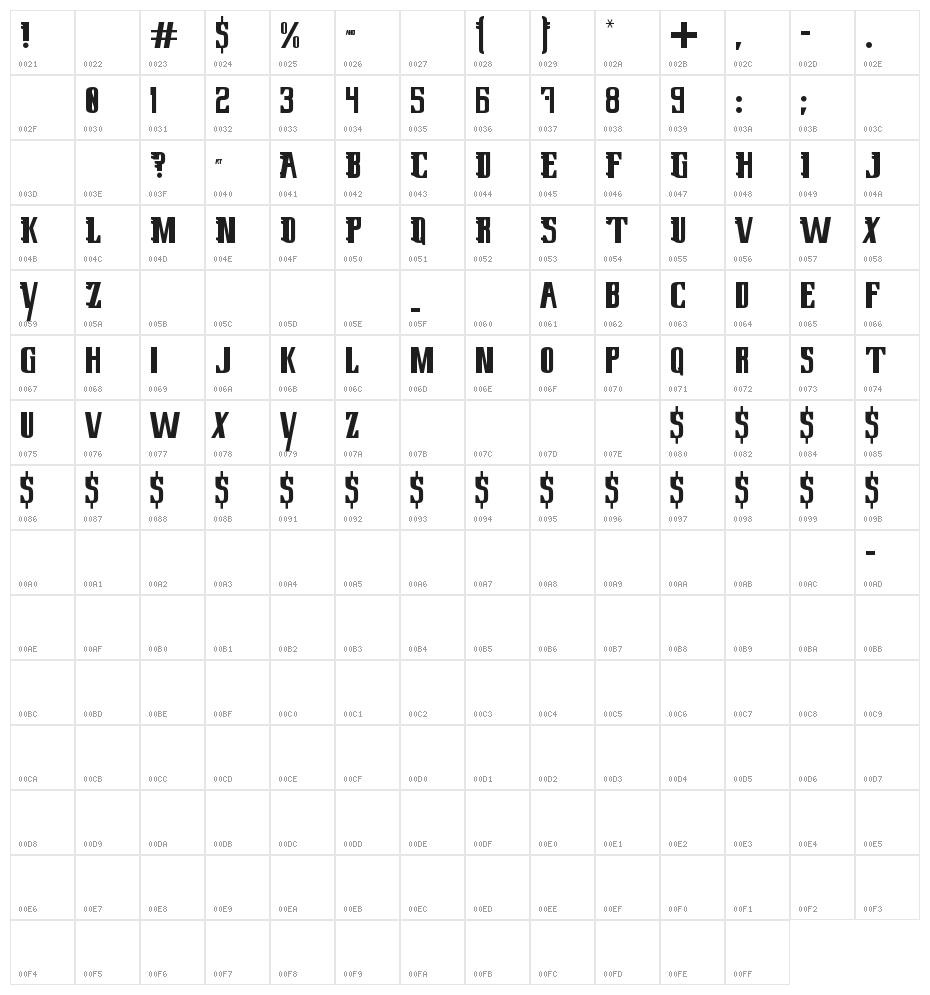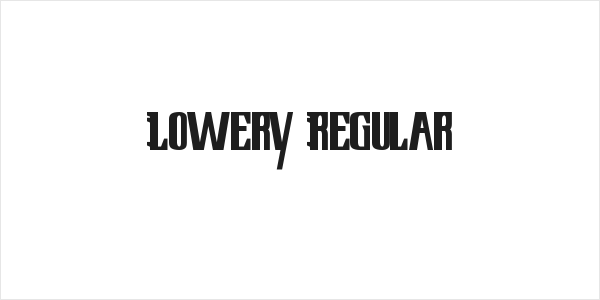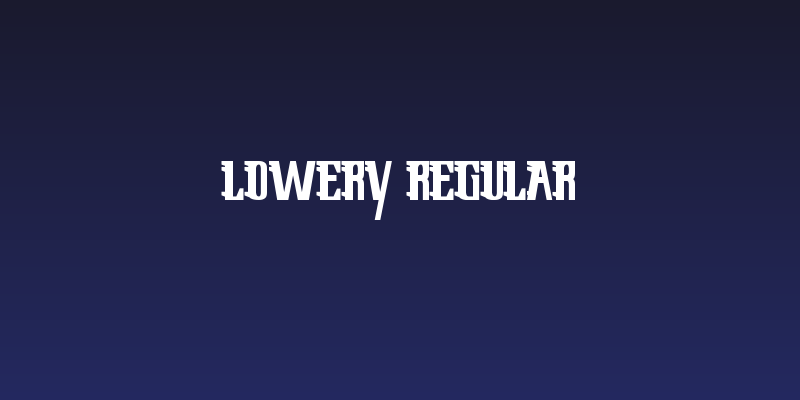
Lowery Regular Font
Lowery Regular Description
This font features a bold and striking design with a strong geometric influence. The characters are constructed with sharp angles and a blocky appearance, giving it a distinct and powerful presence. The uppercase letters are particularly prominent, with a uniform height and width that create a cohesive look. The lowercase letters maintain the same boldness, ensuring readability while adding a touch of uniqueness. Numbers and special characters follow the same design principles, making them easily recognizable and consistent with the overall style. The font's high contrast between thick and thin strokes enhances its visual impact, making it ideal for attention-grabbing headlines or logos.